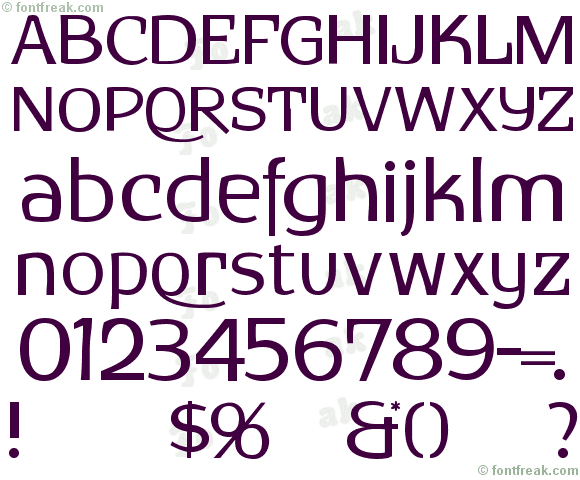
HerdeckeSans
Herdecke Sans, crafted by renowned designer Manfred Klein, is a versatile sans-serif typeface that embodies a modern yet approachable aesthetic. This font is characterized by its clean, geometric lines and consistent stroke weight, which lend it a contemporary feel while ensuring excellent legibility across various applications. Its balanced proportions and moderate spacing create a harmonious appearance, making it an ideal choice for projects that require clarity and sophistication.
The visual characteristics of Herdecke Sans include a smooth, uniform design without excessive embellishments, allowing for a straightforward yet engaging reading experience. The absence of pronounced contrast in the strokes enhances its versatility, making it suitable for both digital and print media. Whether used in headlines or body text, Herdecke Sans maintains a professional demeanor that effectively communicates messages without distraction.
This font is perfect for a variety of use cases, including branding for tech startups, website headers, and corporate presentations. Its straightforward design also makes it an excellent choice for restaurant menus, where readability is paramount, as well as for product packaging that requires a modern touch. Additionally, it can be effectively utilized in social media graphics and promotional materials, appealing to the needs of content creators and small business owners alike.